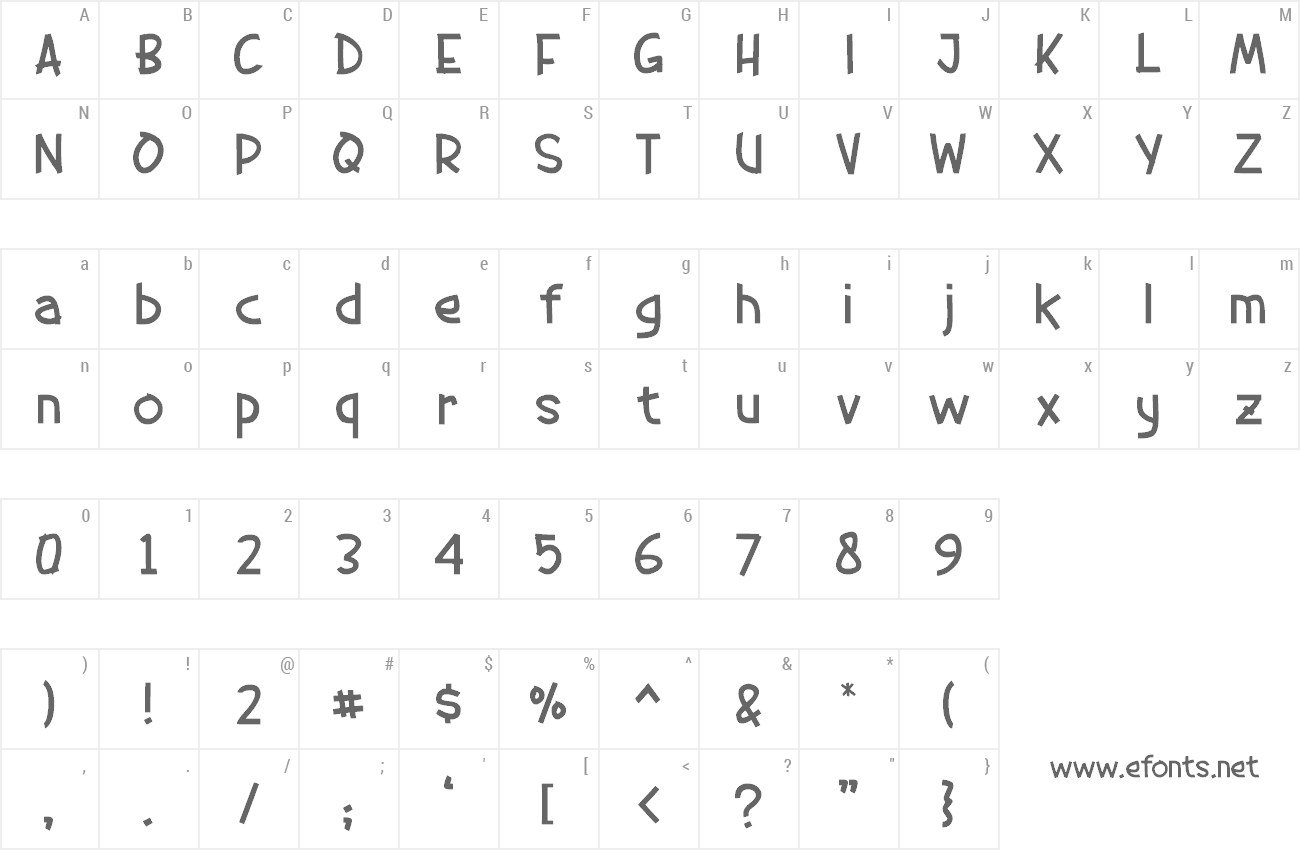
| Font name: | Dumeng |
| Author: | Dumadi Studios |
| Note by Dumadi Studios | |
| The Dumeng is a modern typeface. has a relaxed look, suitable for Youtube thumbnail titles, t-shirts, posters and more |